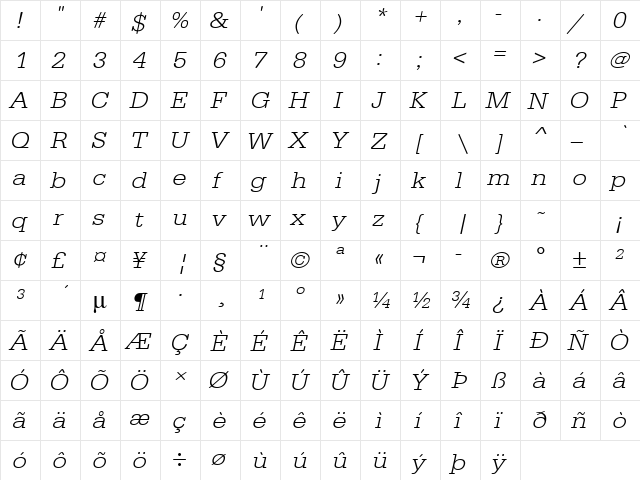
URWTypewriterTLigExtWid Oblique Font Preview
Design Context for URWTypewriterTLigExtWid Typeface
URWTypewriterTLigExtWid brings the precise, column-aligned rhythm of monospaced typography to designs that value technical clarity and systematic order. The slanted form adds forward momentum and visual energy.
Well-suited to data-driven dashboards, coding tutorials, and any design that wants to reference the world of programming.